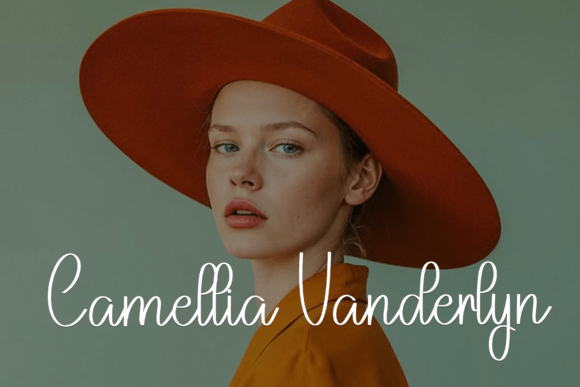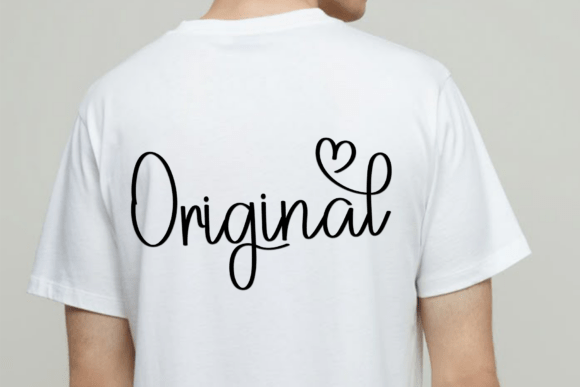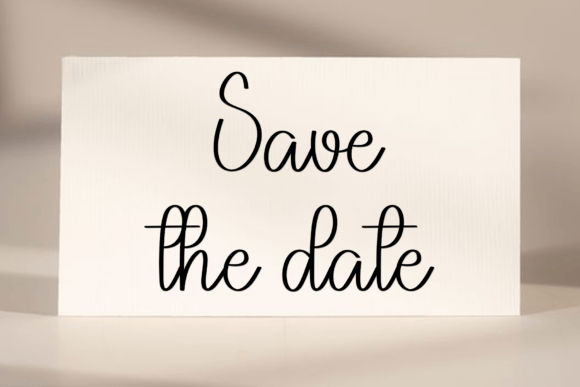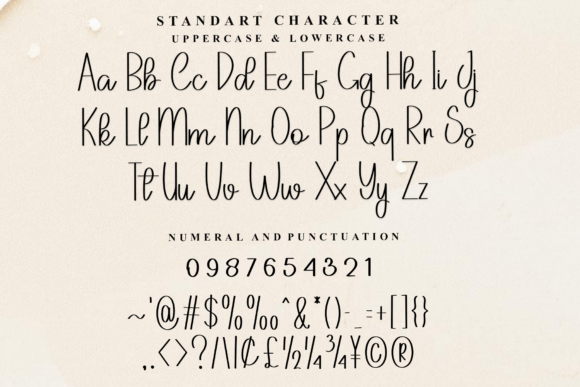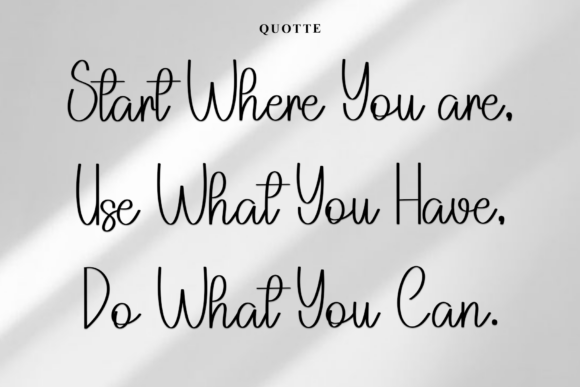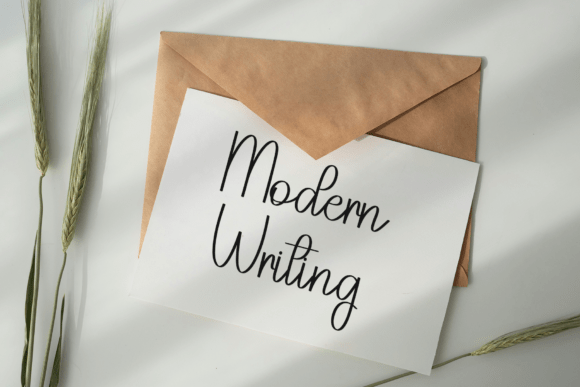
Introducing Cutegirl Font: The Ultimate Holiday Typeface for Your Festive Designs
Are you looking for a font that embodies the magic and wonder of the holiday season? Look no further than Cutegirl Font, a festive and merry typeface that captures the spirit of Christmas, Hanukkah, and all the joyous celebrations in between. With its decorative elements and whimsical flair, Cutegirl Font is the perfect addition to your design toolkit, adding a touch of enchantment to your creations.
A Festive Font for Every Occasion
Cutegirl Font is specifically designed to bring a cheerful and nostalgic ambiance to your words, making it ideal for a wide range of holiday-themed projects. Whether you’re creating greeting cards, gift tags, invitations, or social media graphics, this font is sure to delight. Its playful and charming design will transport your audience to a world of wonder and excitement, making your message even more special.
What Makes Cutegirl Font So Special?
So, what sets Cutegirl Font apart from other typefaces? Here are just a few features that make it a standout:
- Decorative Elements: Cutegirl Font boasts an array of decorative elements, including intricate swashes, flourishes, and ornaments that add a touch of luxury to your designs.
- Whimsical Flair: This font’s whimsical design is sure to put a smile on your audience’s face. Its playful curves and lines evoke a sense of nostalgia and fun.
Cutegirl Font is a versatile typeface that’s perfect for both designers and crafters. Here are just a few ways you can use this font to elevate your projects:
- Greeting Cards: Add a personal touch to your holiday cards with Cutegirl Font’s charming design.
- Gift Tags: Make your gifts extra special with custom tags featuring this festive font.
- Social Media Graphics: Create engaging holiday-themed graphics for social media using Cutegirl Font.
- Invitations: Set the tone for your holiday party or event with custom invitations featuring this merry typeface.
Tips for Getting the Most Out of Cutegirl Font
To make the most of Cutegirl Font, here are a few tips to keep in mind:
- Experiment with Sizes: Play around with different font sizes to create visual interest and hierarchy in your designs.
- Mix and Match: Combine Cutegirl Font with other fonts to create a unique and eye-catching design.
- Use Decorative Elements: Take advantage of Cutegirl Font’s decorative elements to add a touch of personality to your designs.
Cutegirl Font is a magical typeface that’s sure to bring joy and wonder to your holiday designs. With its decorative elements, whimsical flair, and PUA encoding, this font is the perfect addition to your design toolkit. Whether you’re a designer or crafter, Cutegirl Font is sure to inspire your creativity and help you create stunning holiday-themed projects. So why wait? Download Cutegirl Font today and let the magic begin!